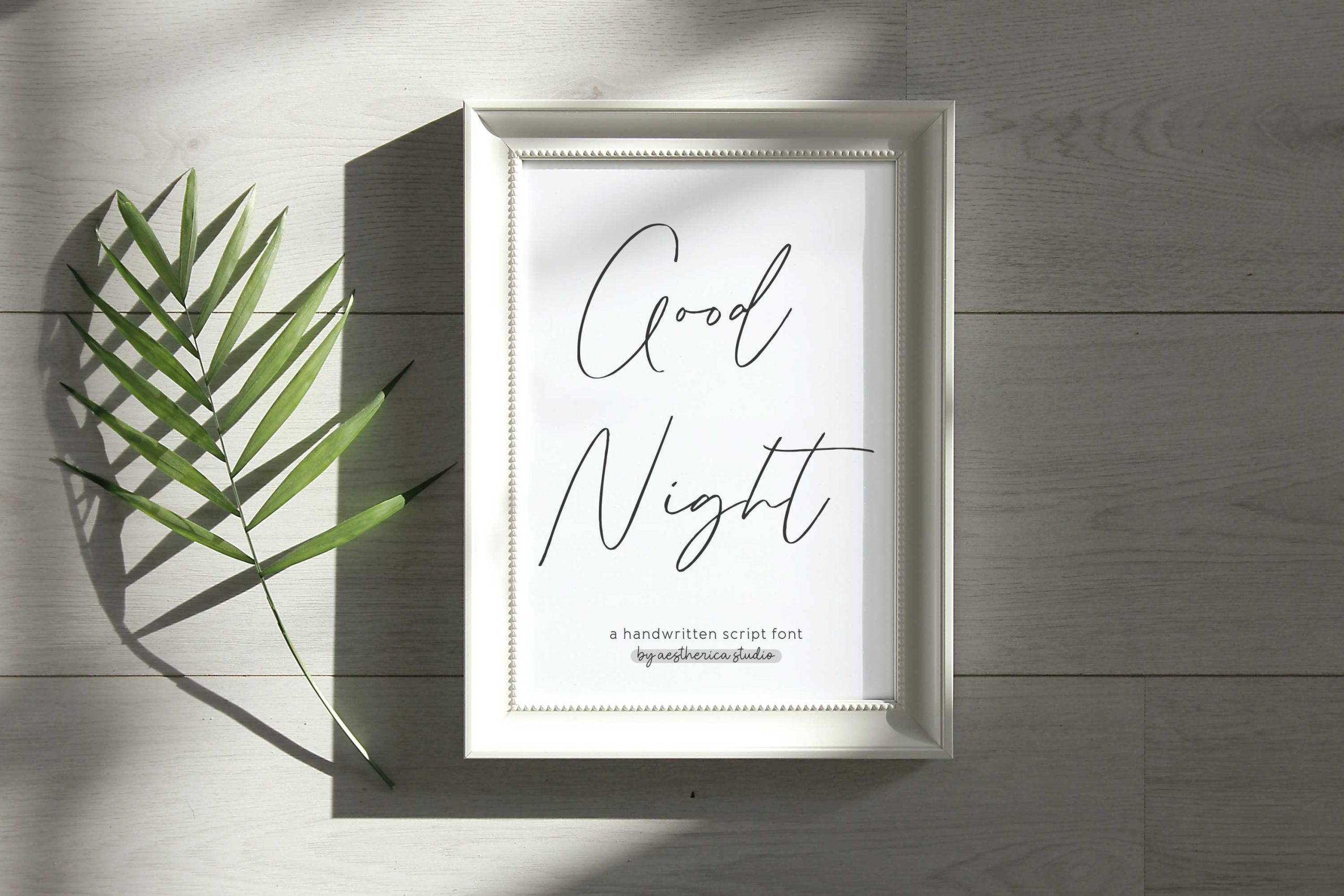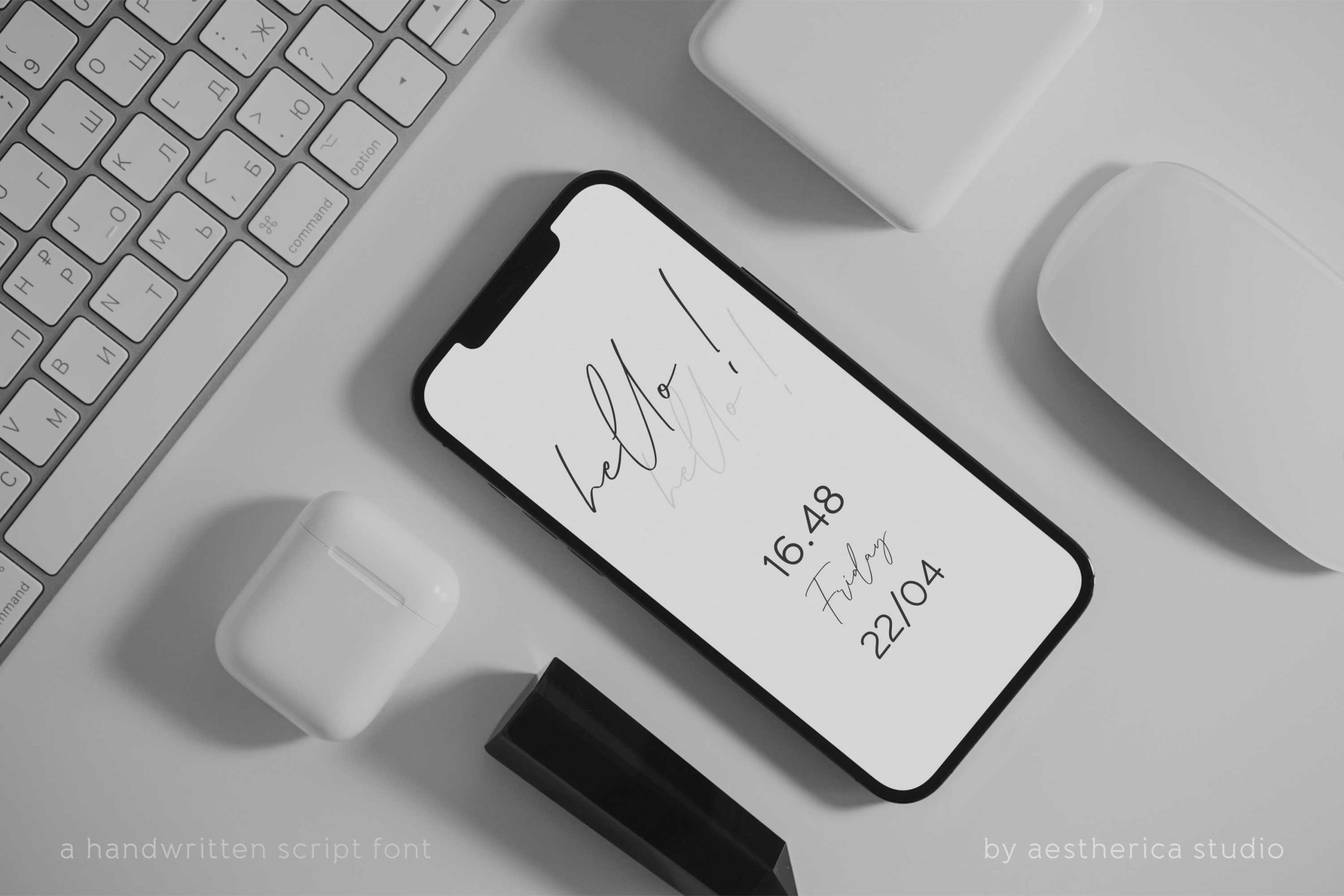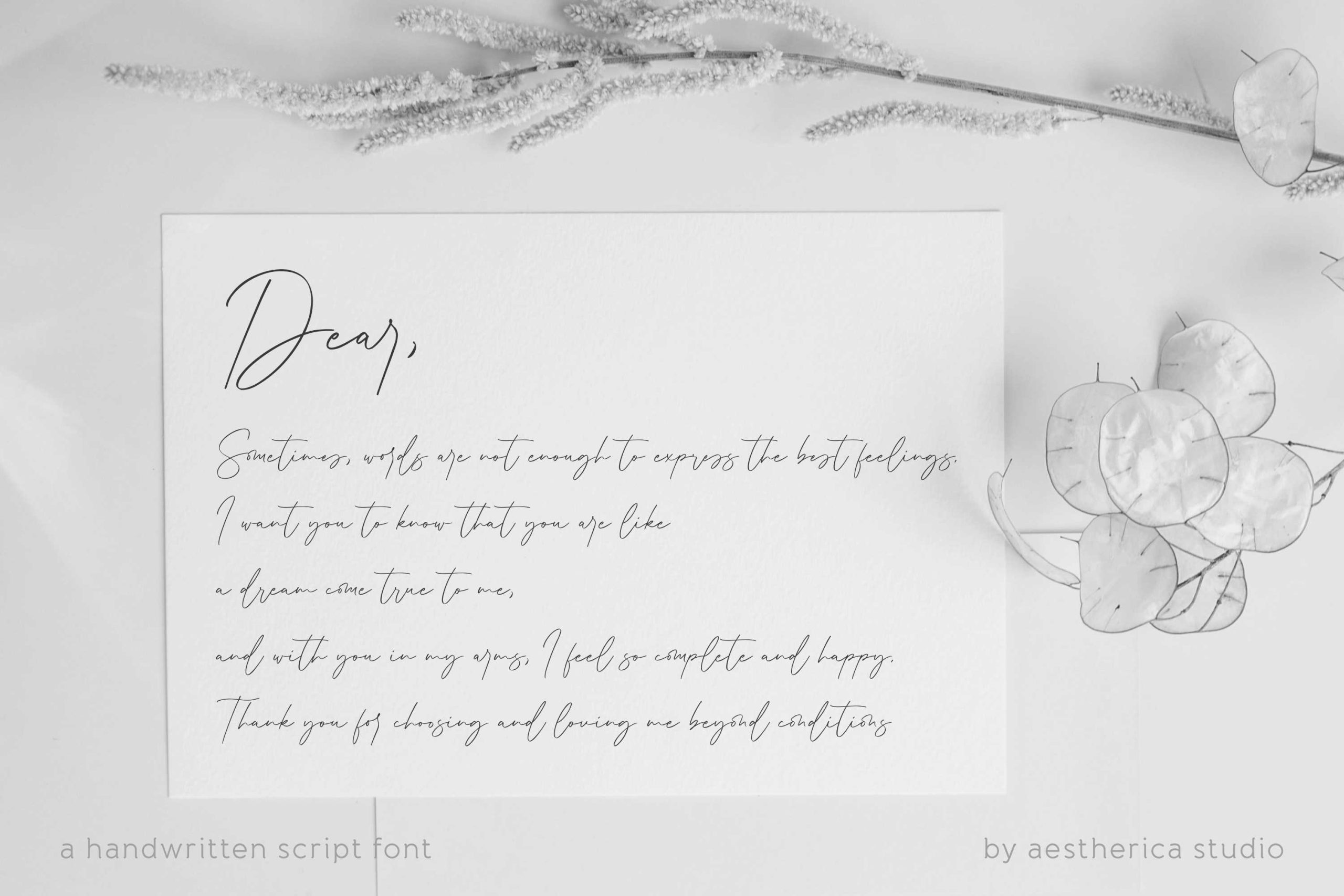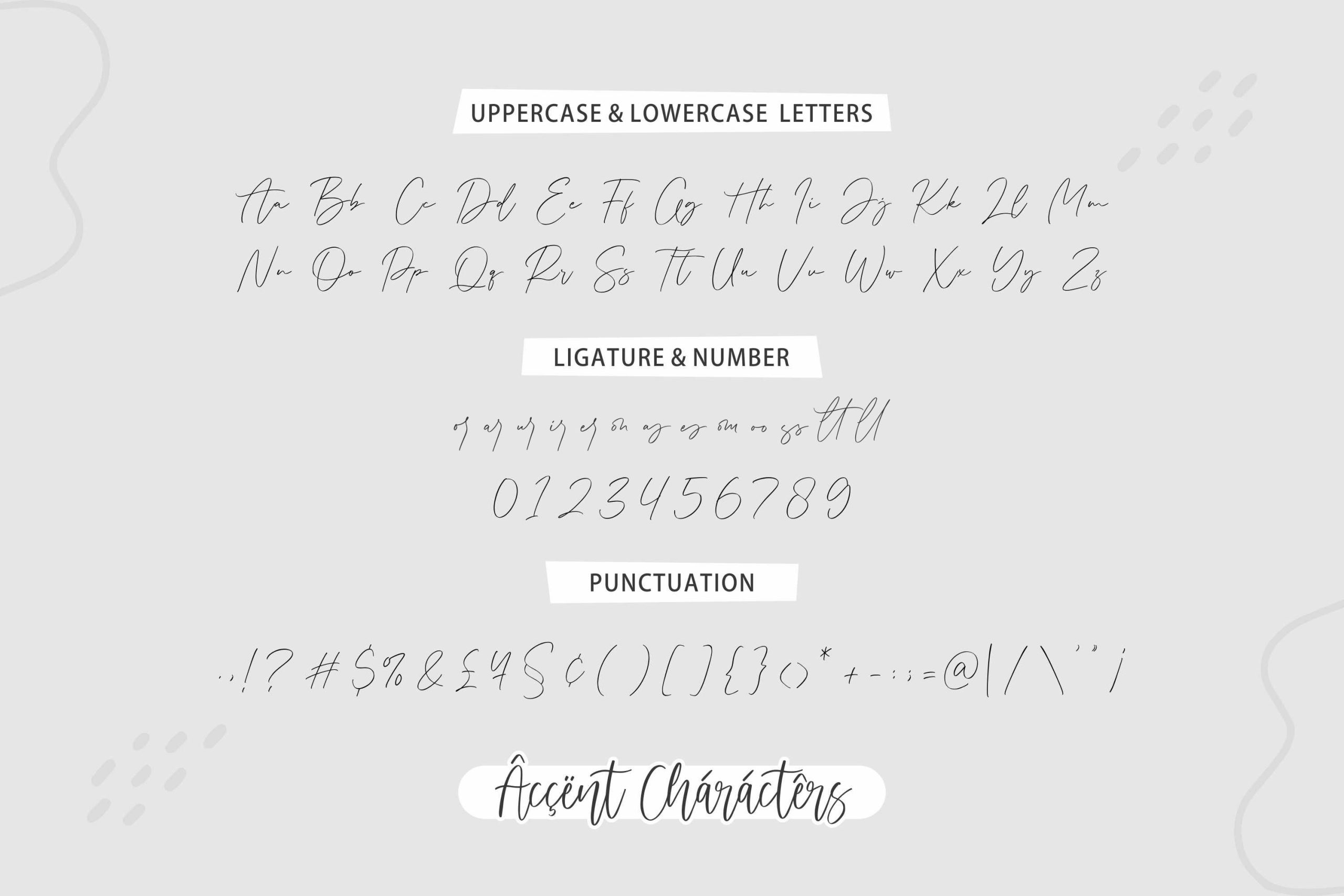
Adorne Font
Adorne Handwritten Font
It’s a handwritten script with a natural & stylish flow. This typeface is perfect for personal branding.
Adorne is perfect for branding projects, logos, wedding designs, social media posts, advertisements, product packaging, product designs, label, photography, watermark, invitation, stationery, and any projects that need handwriting taste.